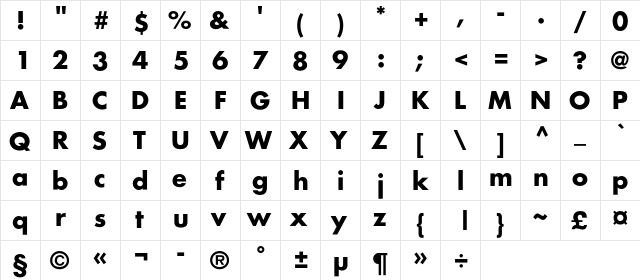
AGFatumC Bold
Design Context for AGFatumC Typeface
AGFatumC is a composed and adaptable typeface that performs quietly and consistently across a wide range of design contexts. The heavy weight commands attention and anchors typographic hierarchies.